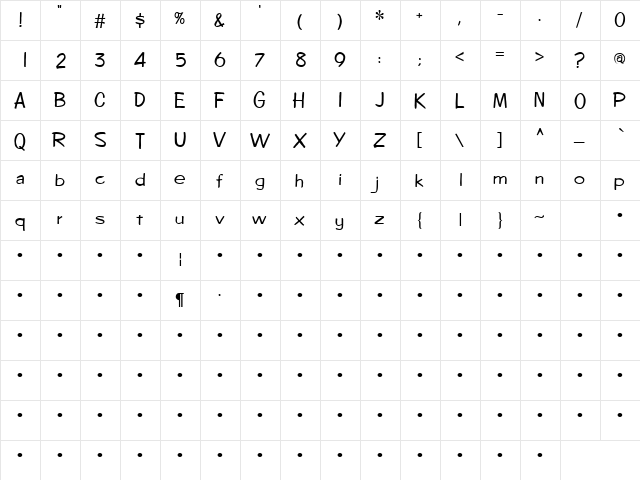
QTSanDiego Regular
Design Context for QTSanDiego Typeface
QTSanDiego takes a measured approach to typography — its balanced proportions and neutral character make it a reliable workhorse for both digital and print work.